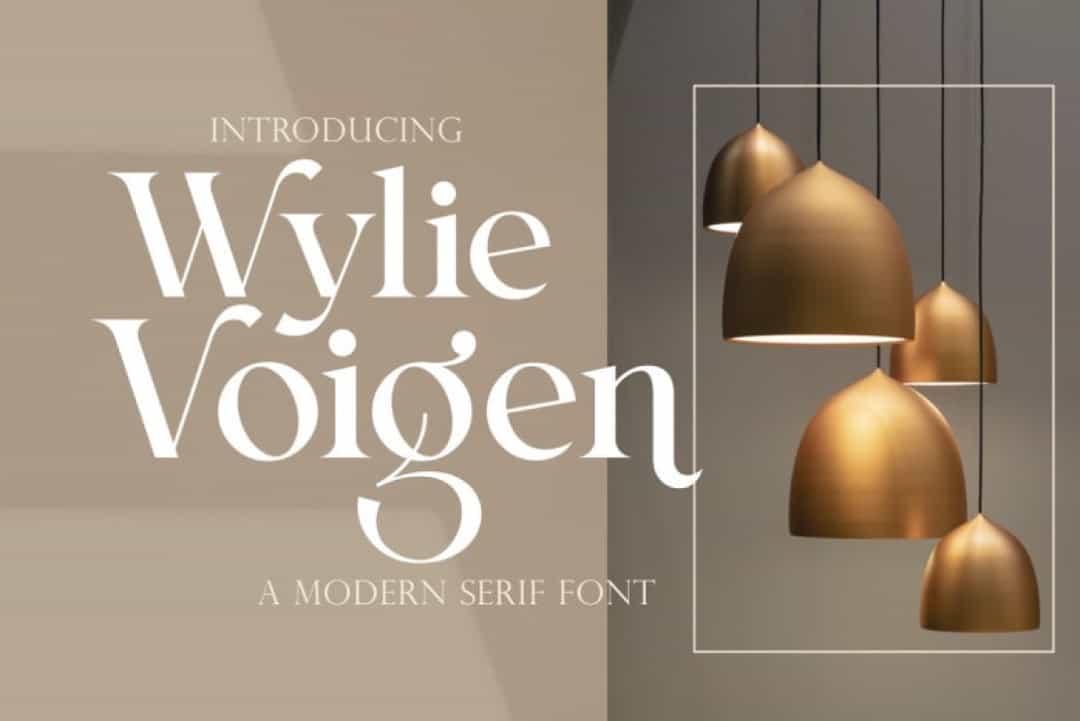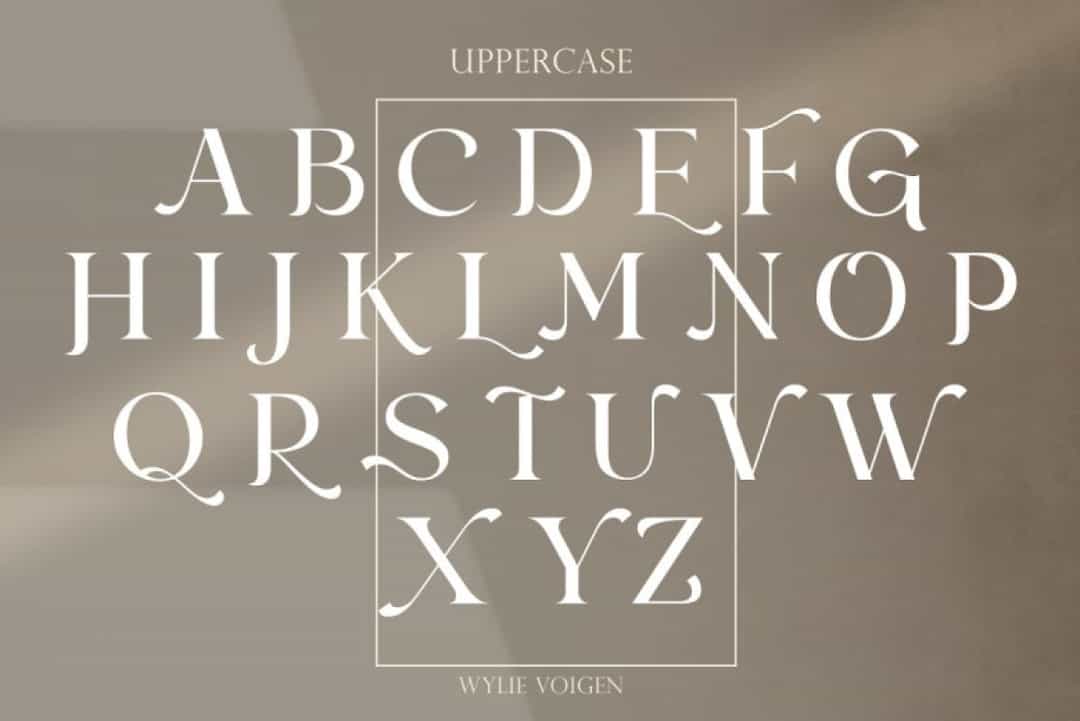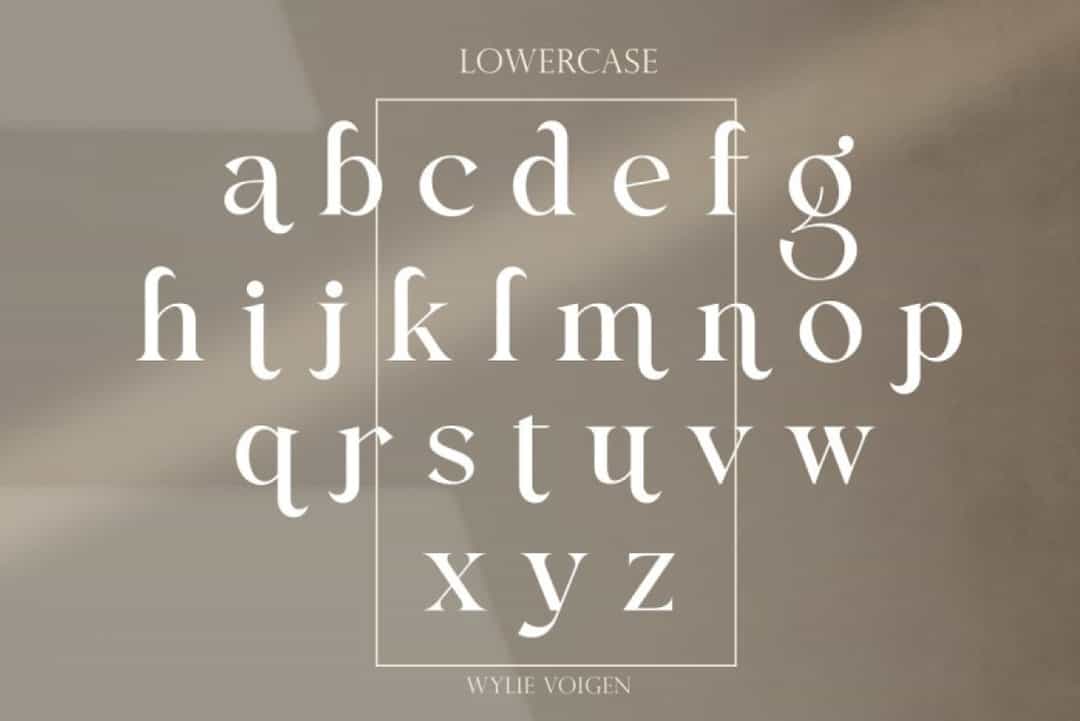
Wylie Voigen – A Modern Serif Font. Combining fashion and culture, Wylie Voigen makes for an eye-catching way to show the distinctive character of your company. Use Wylie Voigen to design beautiful websites apps advertisements merchandise designed cards etc for use by your business.